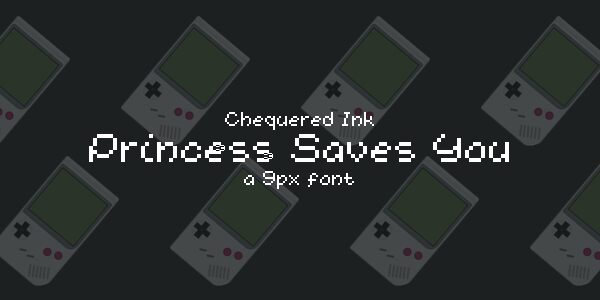
Princess Saves You
"Princess Saves You" is a delightfully whimsical bitmap font that exudes a delightful pixelated charm. With its expanded, playful letterforms, this font evokes a sense of retro gaming nostalgia and a touch of playful adventure. The designer's attention to detail shines through in the font's carefully crafted aesthetic, making it a versatile choice for a range of design applications, from game interfaces and branding to storybook illustrations and children's media. Its distinctive style ensures that projects infused with "Princess Saves You" will captivate audiences with its captivating blend of vintage flair and contemporary appeal.
This font's unique character could lend itself well to designs requiring a sense of youthful energy, fantasy, or a lighthearted tone. Its pixelated appearance and expanded width make it an excellent fit for digital interfaces, logo designs, or any project seeking to convey a charming, game-inspired aesthetic.